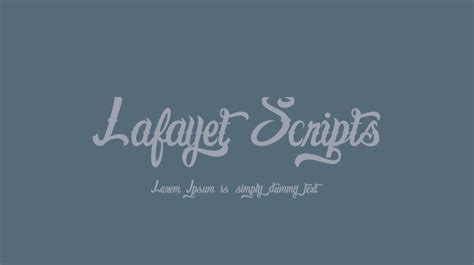
Lafayet Script Font - The lafayet scripts font has been downloaded 59,090 times. Web lafayet scripts font family designed by vicky mardian has a total of 1 different styles. 266,790 downloads (3 yesterday) 100% free. Lafayet scripts font is free for both personel and commercial usages. Web download and install the lafayet scripts font by vicky mardian.
Lafayet Script Font - Lafayet scripts font is free for both personel and commercial usages. Lafayet scripts à € by vmf font. Web download and install the lafayet scripts font by vicky mardian. Web lafayet scripts font is a script, calligraphy font designed by vmf font. You can download the lafayet scripts font to.
Lafayet Script Font - Web download and install the lafayet scripts font by vicky mardian. Web lafayet scripts font is a script, calligraphy font designed by vmf font. 266,790 downloads (3 yesterday) 100% free. You can download the lafayet scripts font to. Web lafayet scripts font family designed by vicky mardian has a total of 1 different styles.
Lafayet Script Font - Web lafayet scripts font family designed by vicky mardian has a total of 1 different styles. Lafayet scripts à € by vmf font. Web download and install the lafayet scripts font by vicky mardian. Web lafayet scripts font is a script, calligraphy font designed by vmf font. Lafayet scripts font is free for both personel and commercial usages.
Lafayet Script Font - Web lafayet scripts font is a script, calligraphy font designed by vmf font. Lafayet scripts à € by vmf font. Web lafayet scripts, a mesmerizing calligraphic font crafted by the talented vicky mardian of vmf font, exudes an elegant and refined. Lafayet scripts font is free for both personel and commercial usages. 266,790 downloads (3 yesterday) 100% free.
Lafayet Script Font - 266,790 downloads (3 yesterday) 100% free. Lafayet scripts font is free for both personel and commercial usages. Web lafayet scripts font is a script, calligraphy font designed by vmf font. Lafayet scripts à € by vmf font. Web lafayet scripts, a mesmerizing calligraphic font crafted by the talented vicky mardian of vmf font, exudes an elegant and refined.
Lafayet Script Font - Web lafayet scripts font is a script, calligraphy font designed by vmf font. Web download and install the lafayet scripts font by vicky mardian. Lafayet scripts font is free for both personel and commercial usages. 266,790 downloads (3 yesterday) 100% free. You can download the lafayet scripts font to.
Lafayet Script Font - Lafayet scripts font is free for both personel and commercial usages. Web download and install the lafayet scripts font by vicky mardian. Web lafayet scripts, a mesmerizing calligraphic font crafted by the talented vicky mardian of vmf font, exudes an elegant and refined. You can download the lafayet scripts font to. Lafayet scripts à € by vmf font.
Lafayet Script Font - 266,790 downloads (3 yesterday) 100% free. Web download and install the lafayet scripts font by vicky mardian. Lafayet scripts font is free for both personel and commercial usages. You can download the lafayet scripts font to. Web lafayet scripts font is a script, calligraphy font designed by vmf font.
Lafayet Script Font - You can download the lafayet scripts font to. Web lafayet scripts font family designed by vicky mardian has a total of 1 different styles. Web lafayet scripts font is a script, calligraphy font designed by vmf font. The lafayet scripts font has been downloaded 59,090 times. Lafayet scripts font is free for both personel and commercial usages.
Lafayet Script Font - Lafayet scripts font is free for both personel and commercial usages. Web download and install the lafayet scripts font by vicky mardian. Web lafayet scripts font family designed by vicky mardian has a total of 1 different styles. Web lafayet scripts, a mesmerizing calligraphic font crafted by the talented vicky mardian of vmf font, exudes an elegant and refined. You.